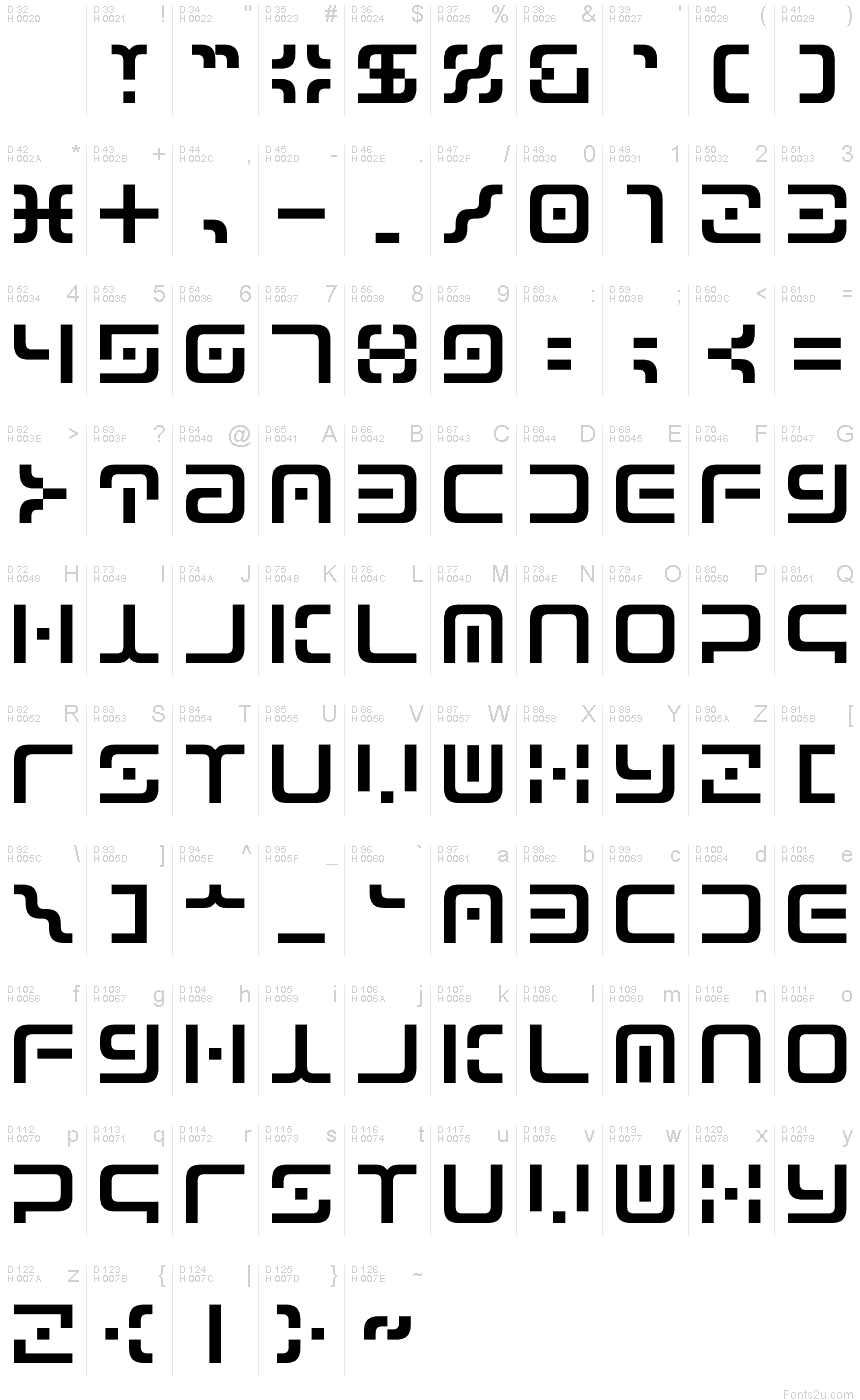
Bwnsnw by MESA is a free futuristic display font built from broad, monoline strokes and squared curves. Rectangular gaps punctuate the otherwise continuous lettering.
Its strongest use is technology branding, where the compact construction can turn a logo into a crisp emblem for software companies, electronics makers, or digital products. The same mix of rounded geometry and deliberate cutouts also suits game title cards, electronic music posters, science-fiction merchandise, and interface graphics built around circuit diagrams or modular visual themes.